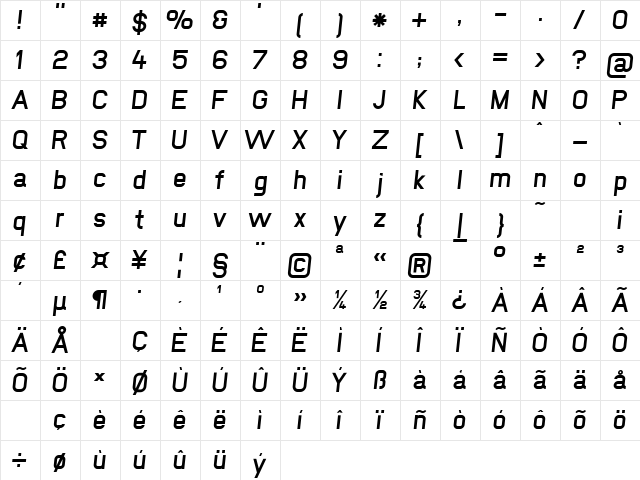
NewMedia Bold Italic
Design Context for NewMedia Typeface
NewMedia offers clean, dependable letterforms without strong stylistic allegiance, making it a practical choice for designers who need flexibility. The slanted form adds forward momentum and visual energy. The heavy weight commands attention and anchors typographic hierarchies.
Pro Tip: Use NewMedia for emphasis, pull quotes, and subheadings where its slanted energy can add rhythm to the layout.